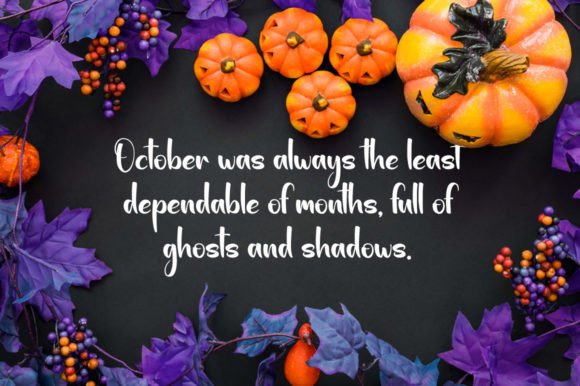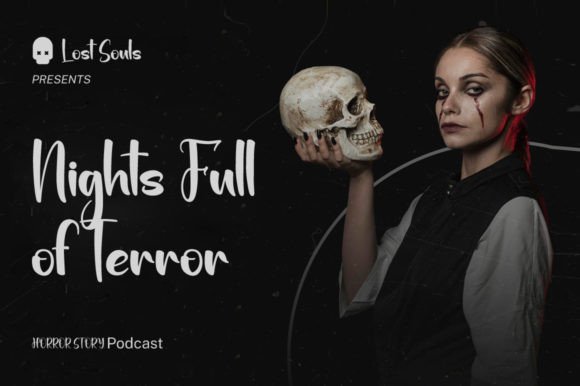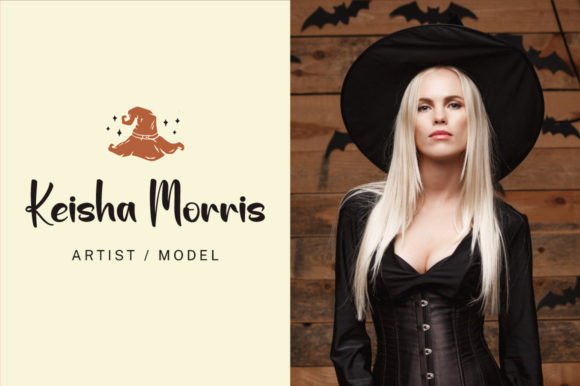
Introduction to Haunted Witch Font
Haunted Witch is a fun and smart-looking handwritten font.
It looks ravishing on invitations, thank you cards, quotes, greeting cards, logos, business cards, and every other design which needs a customized touch .
Key Features of Haunted Witch Font
Why Choose Haunted Witch Font?
Haunted Witch Font offers exceptional quality and versatility, making it a valuable addition to your design toolkit. Whether you’re creating for personal projects or commercial use, Haunted Witch Font delivers professional results.